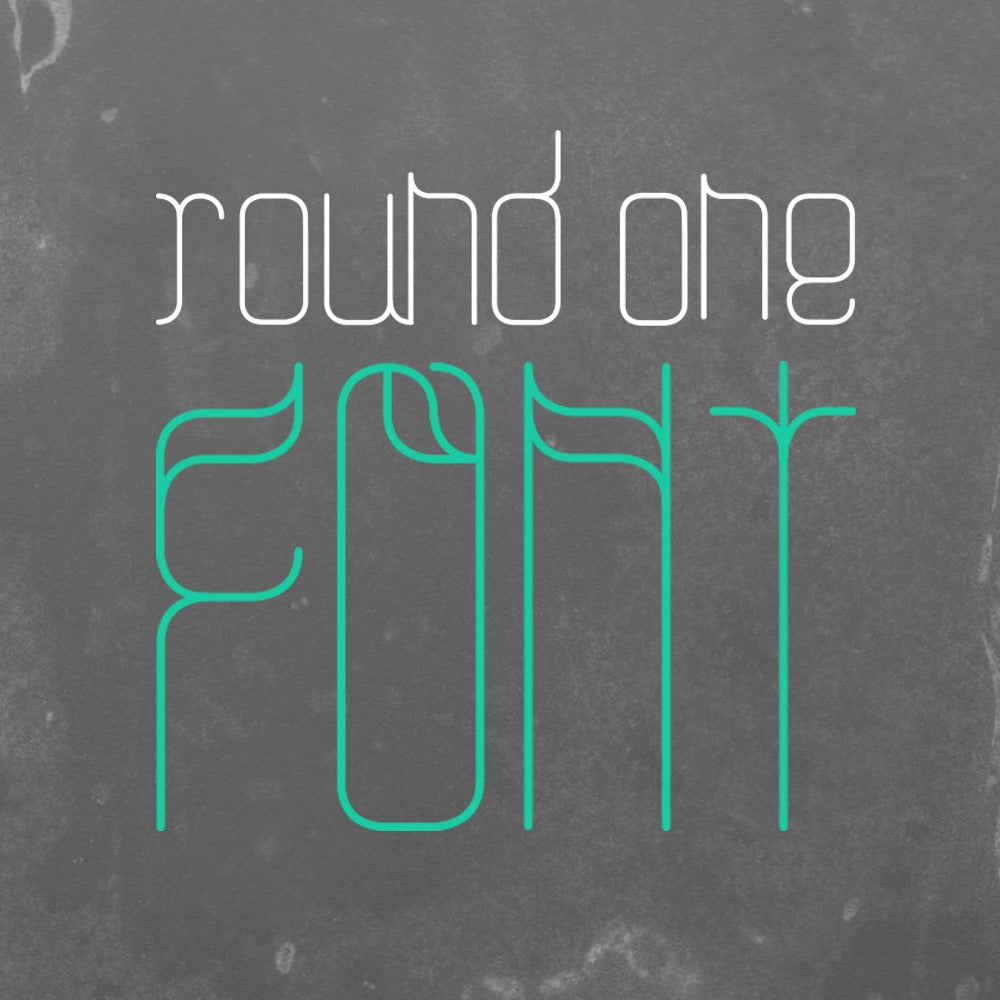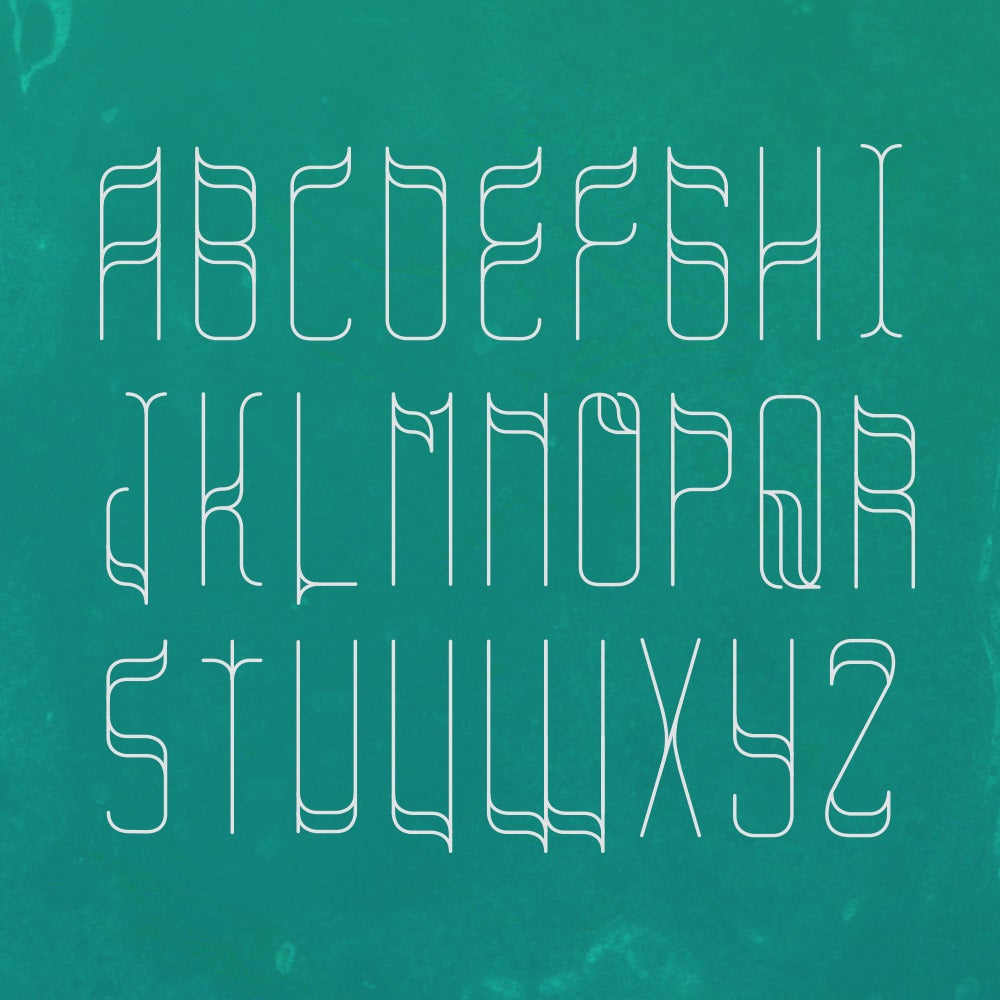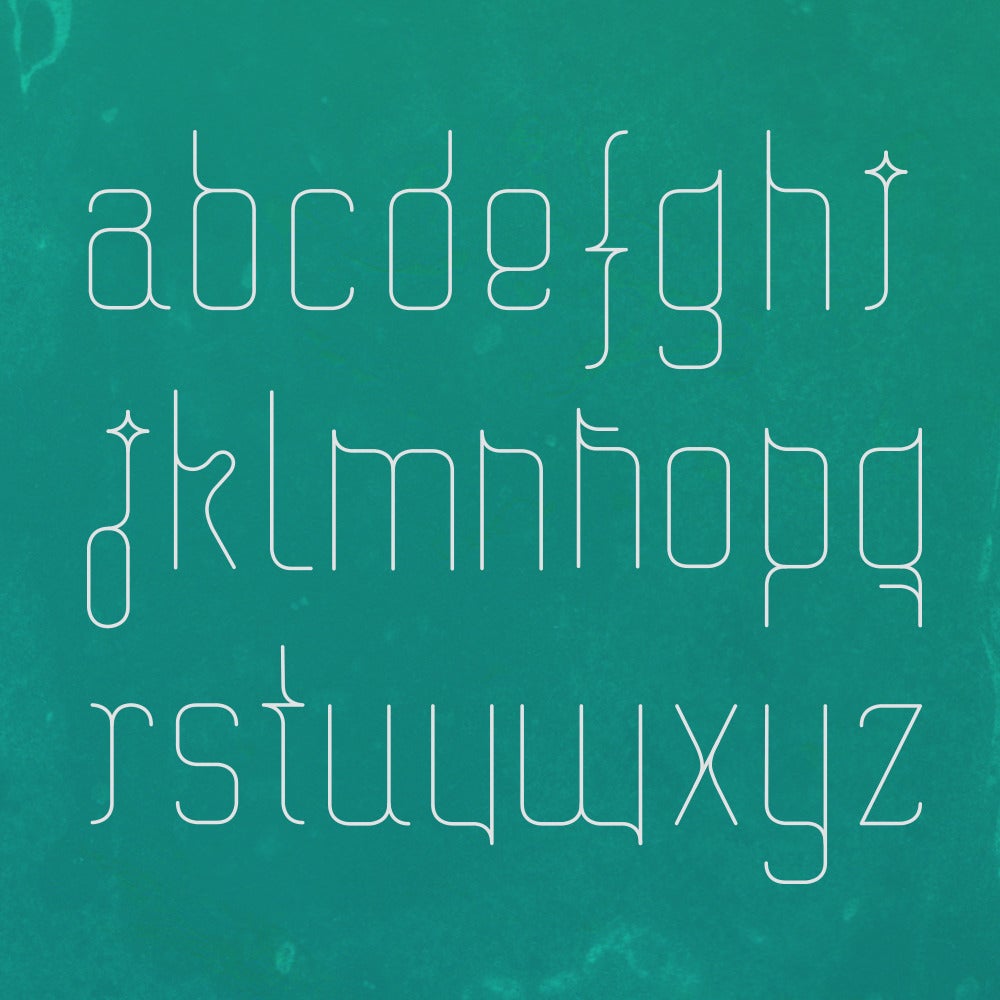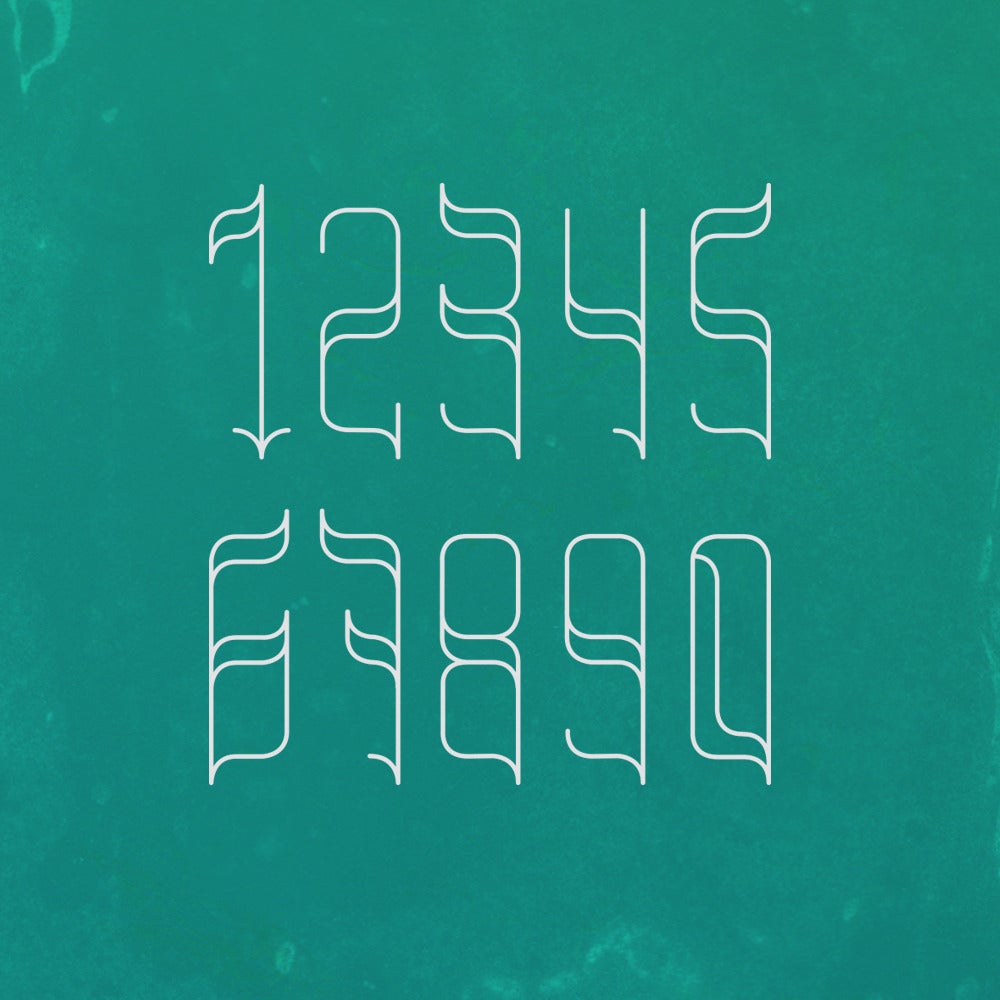
Round One
Display font starting from a basic geometry and playing with interchangeable modules. With particular stress upon the readability.
Designer: Baimu Studio